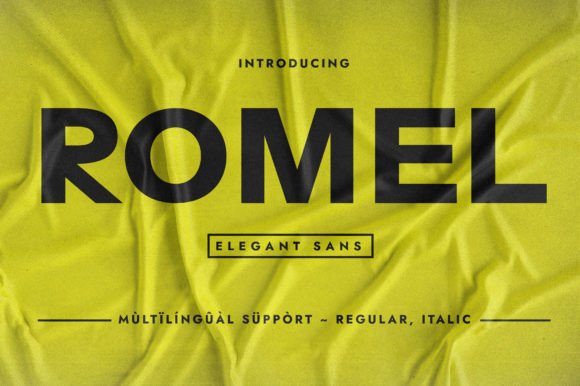
Introducing Romel Font - a minimalist masterpiece designed to make your creative ideas come alive!
Romel's elegant, bold sans serif letters command attention with their strong presence, perfect for captivating headlines, posters, and social media graphics. Its simplicity and readability make it a versatile choice for both large and small-scale projects.
With Romel, your words will stand out, effortlessly capturing the eyes of your audience. Create stunning logos that exude professionalism, or craft eye-catching social media posts that demand attention. Whether for branding, advertising, or personal projects, Romel's versatility knows no bounds.
Embrace the minimalist aesthetic and let Romel's clean lines and simple glyphs elevate your designs. Its structure is meticulously crafted to maintain a balance between simplicity and impact, ensuring that your message is conveyed with clarity and power.
Unlock your creativity and watch as Romel transforms your ideas into captivating visuals. Its versatility allows it to seamlessly adapt to various projects, from sports jerseys to elegant invitations. Unleash your inner artist and let Romel's elegant simplicity inspire you.
Join the creative revolution and download Romel Font today! Experience the beauty of minimalism and elevate your designs to new heights. Let Romel's bold strokes and captivating presence ignite your imagination and leave a lasting impression on your audience.